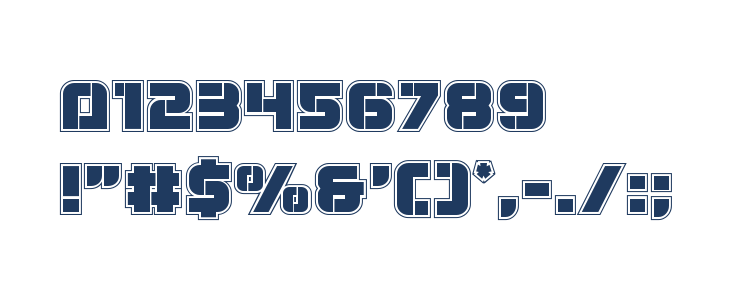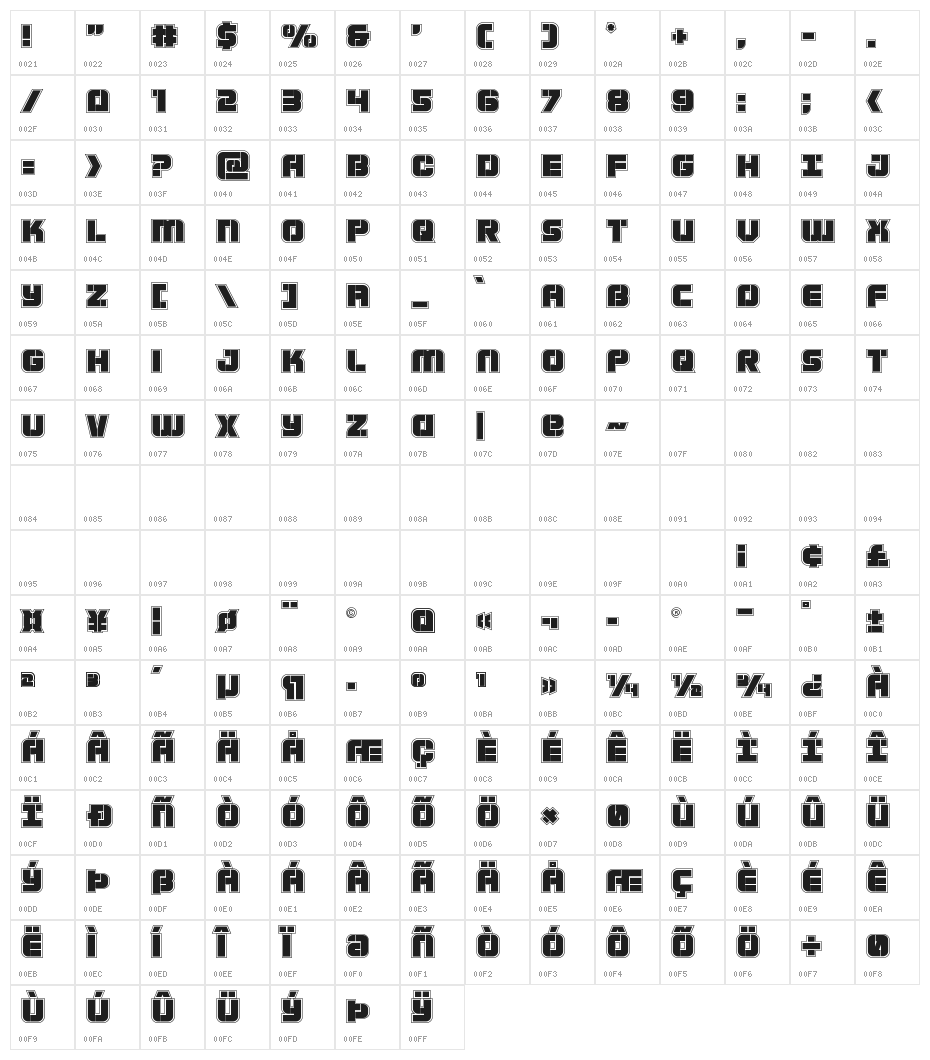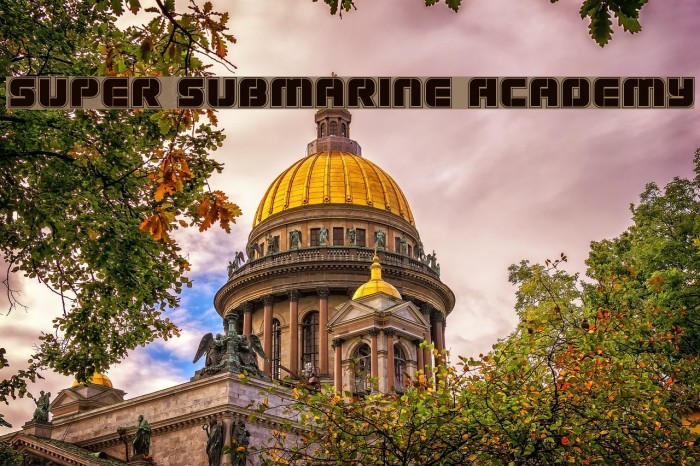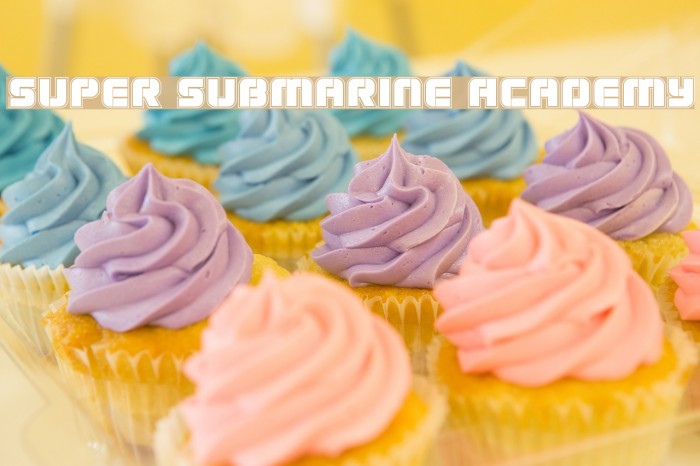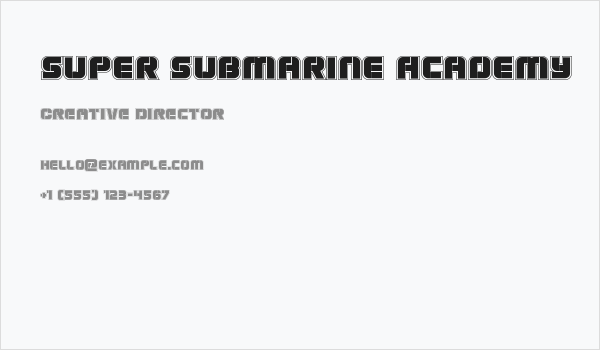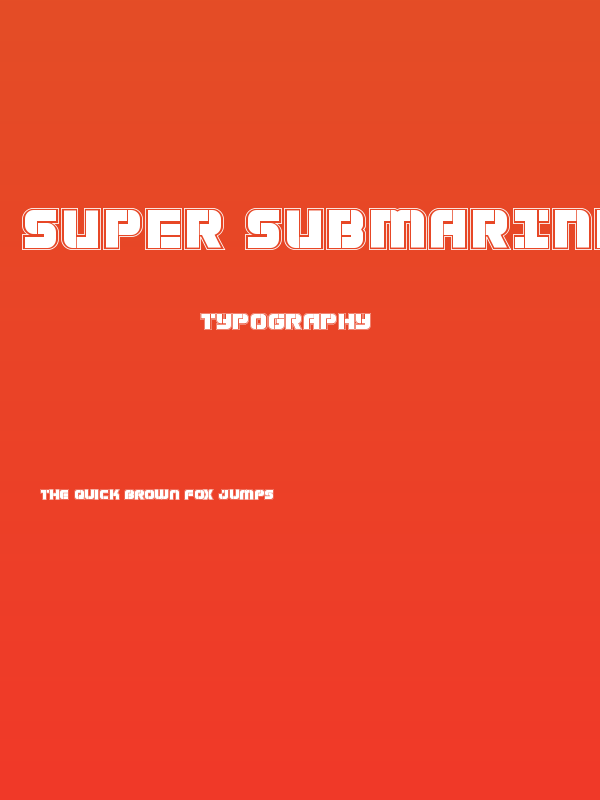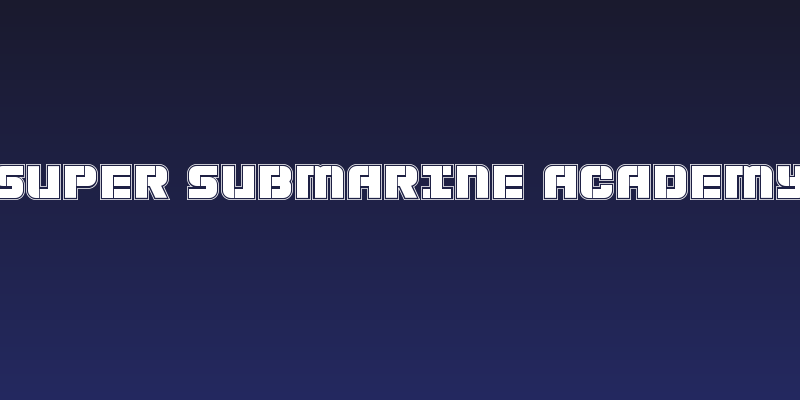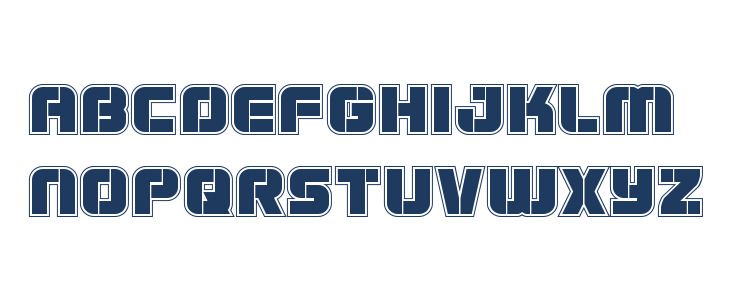
Super Submarine Academy Font
Super Submarine Academy Description
This font features a bold, geometric design with a strong, industrial feel. Each character is constructed with thick, block-like shapes, giving it a robust and powerful appearance. The letters are outlined, adding depth and a three-dimensional effect. The style is reminiscent of retro-futuristic aesthetics, combining elements of both vintage and modern design. The uppercase and lowercase letters maintain a consistent width, while the numbers and special characters follow the same bold, outlined structure. This font is ideal for projects that require a striking and impactful visual presence.
| Overall Style | Retro-Futuristic |
| Proposed Projects | Ideal for branding, posters, video game titles, and any project needing a strong, impactful typeface. |